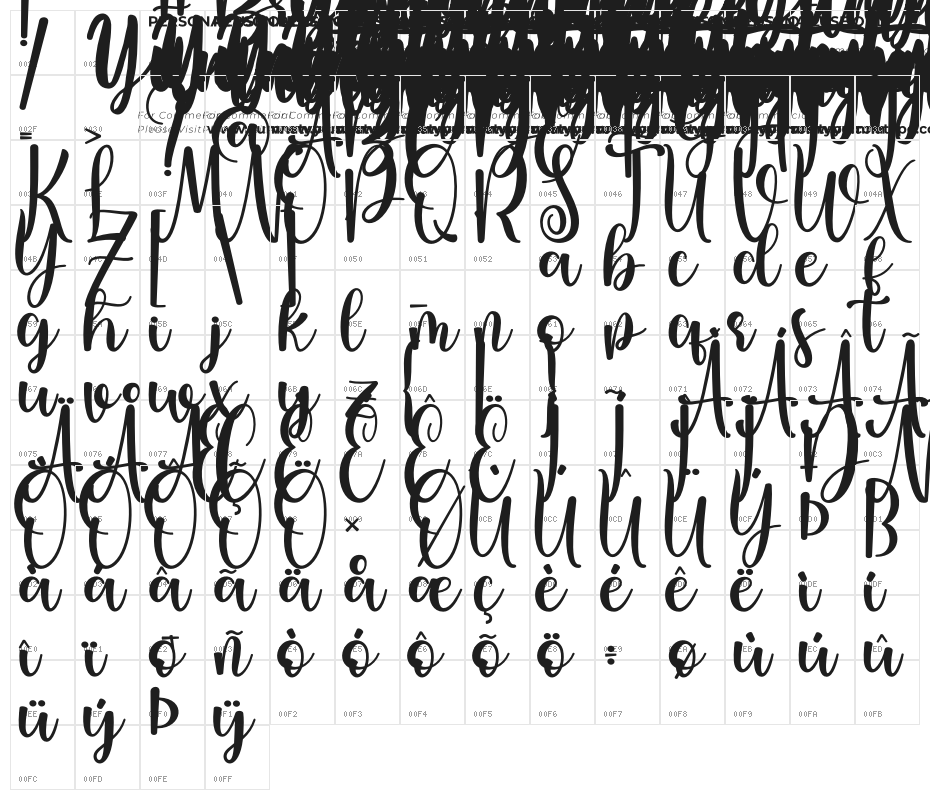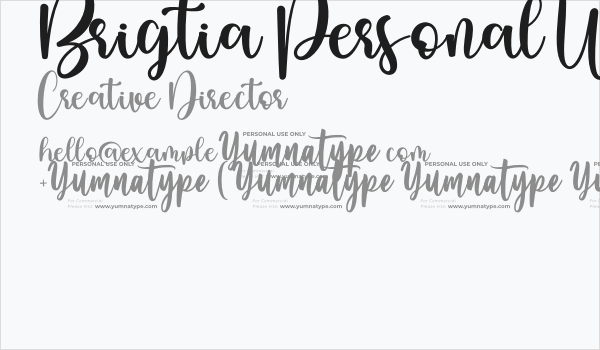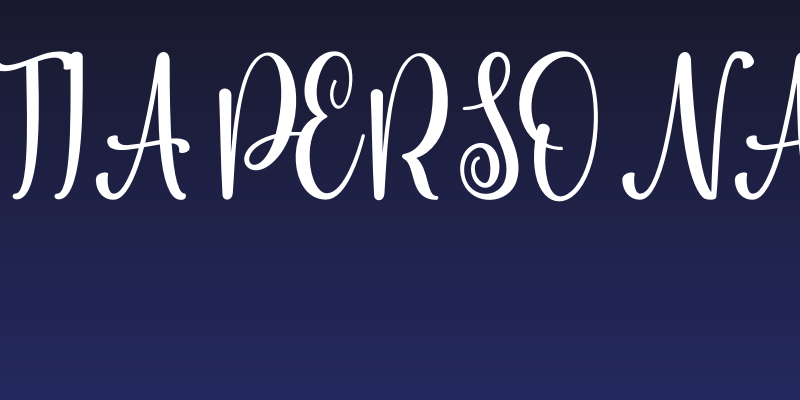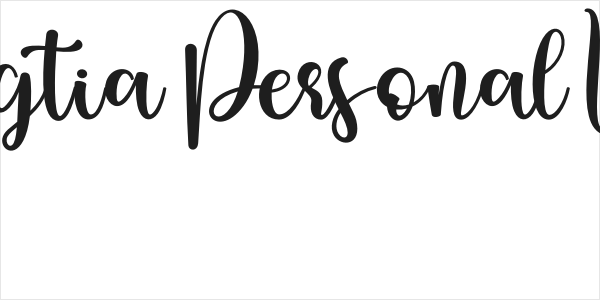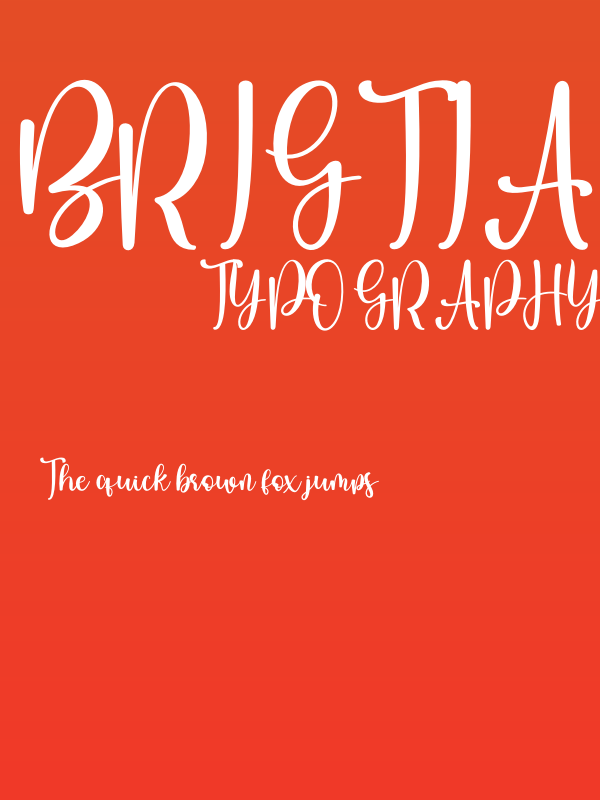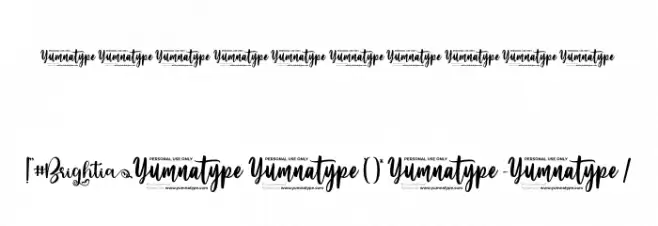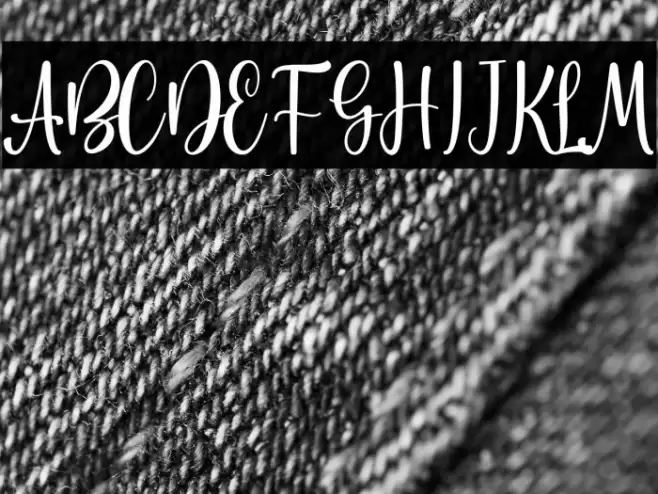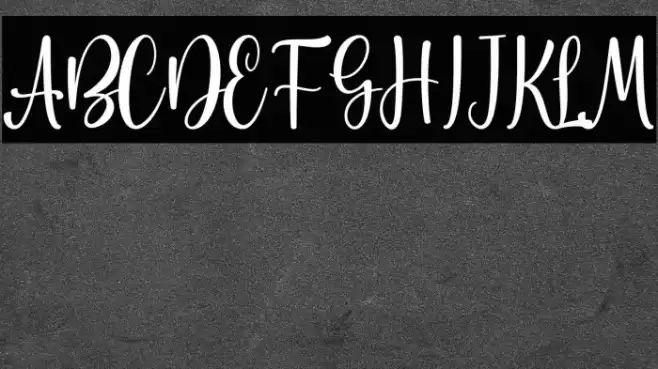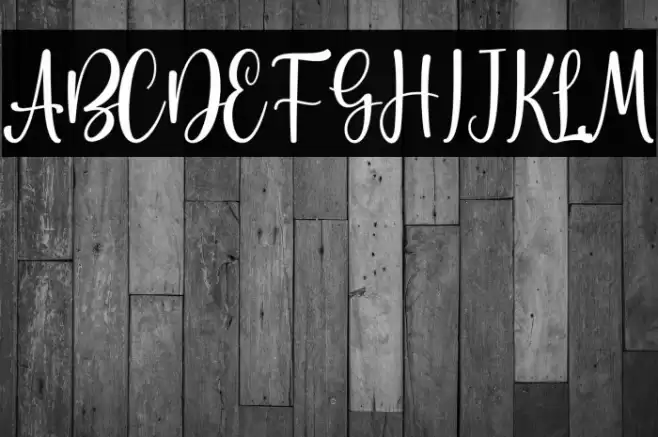
Brigtia Personal Use Font
Brigtia Personal Use Description
This font exhibits a playful and artistic script style, characterized by its flowing, cursive letters that convey a sense of elegance and creativity. The uppercase letters are bold and dynamic, with varying stroke widths that add a touch of whimsy. The lowercase letters maintain a consistent flow, enhancing readability while preserving the artistic flair. The numerals and special characters are crafted with the same attention to detail, ensuring a cohesive look across all elements. This font is ideal for projects that require a personal touch, such as invitations, greeting cards, and branding materials.
| Use Case | Logos, Headlines, Invitations |
| Proposed Projects | Ideal for invitations, greeting cards, branding materials, and creative projects. |